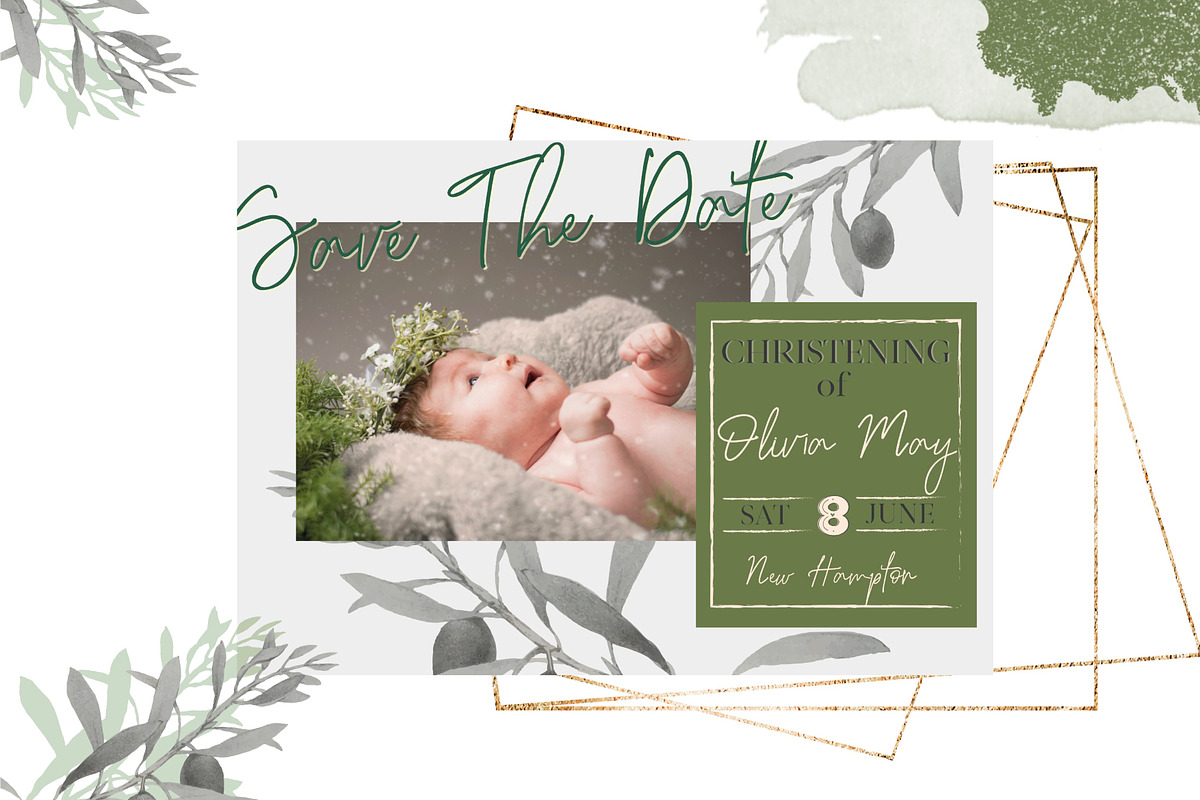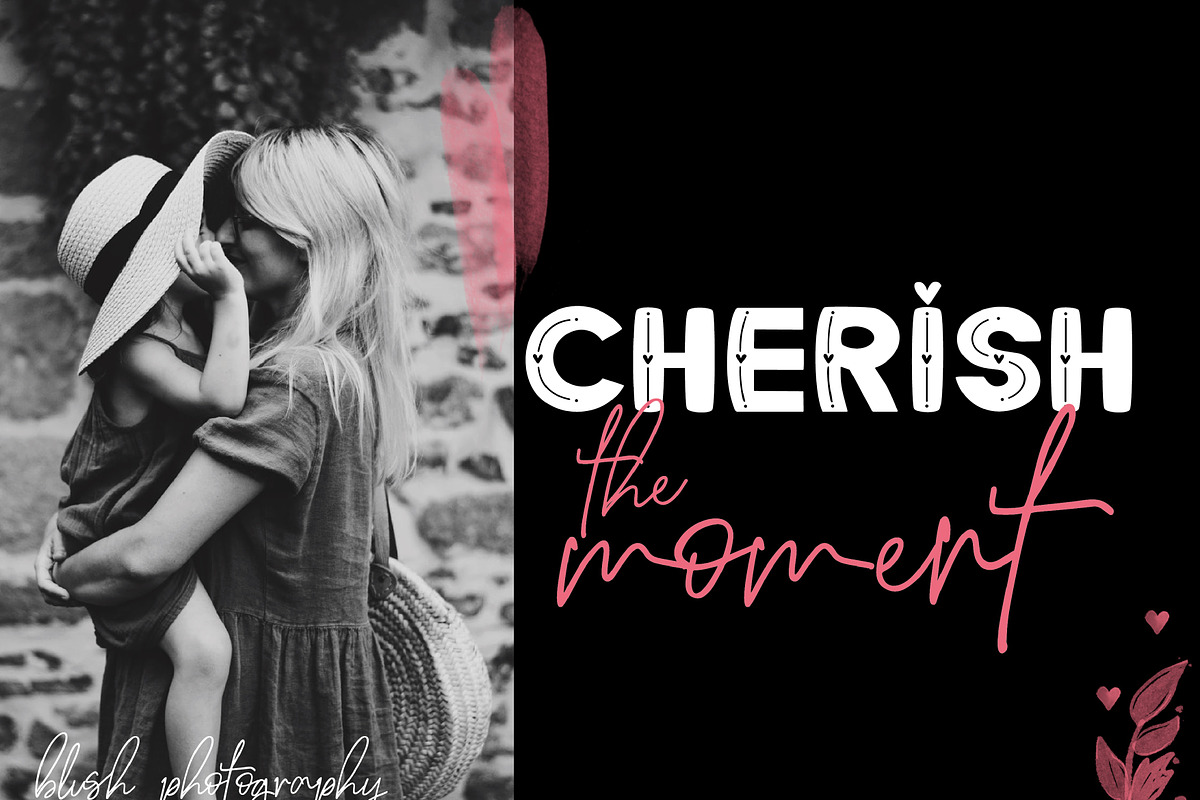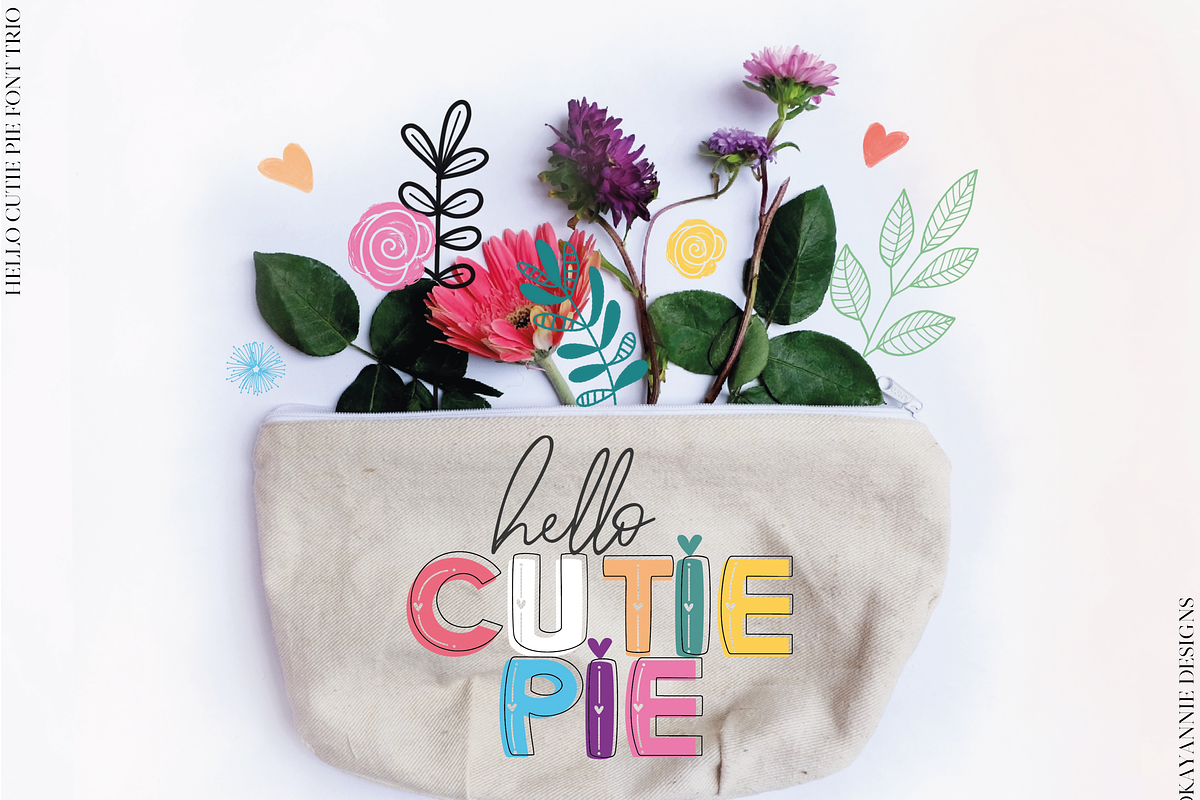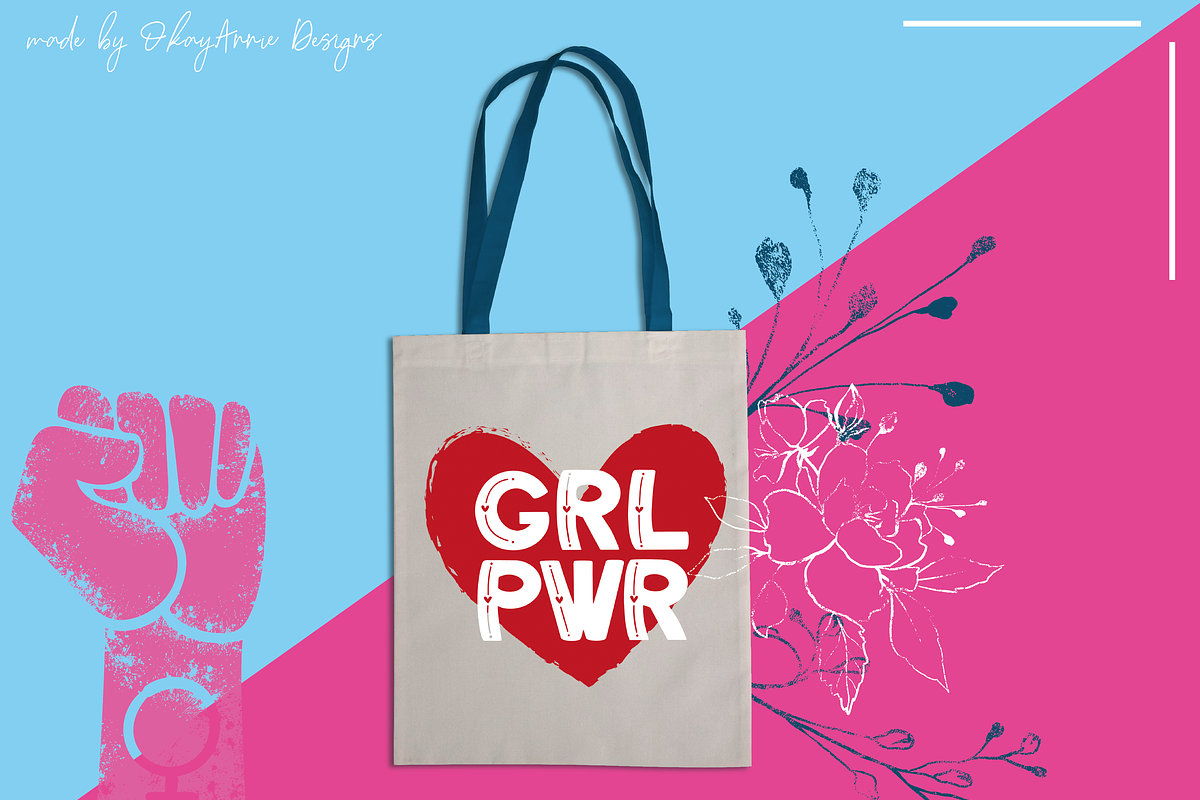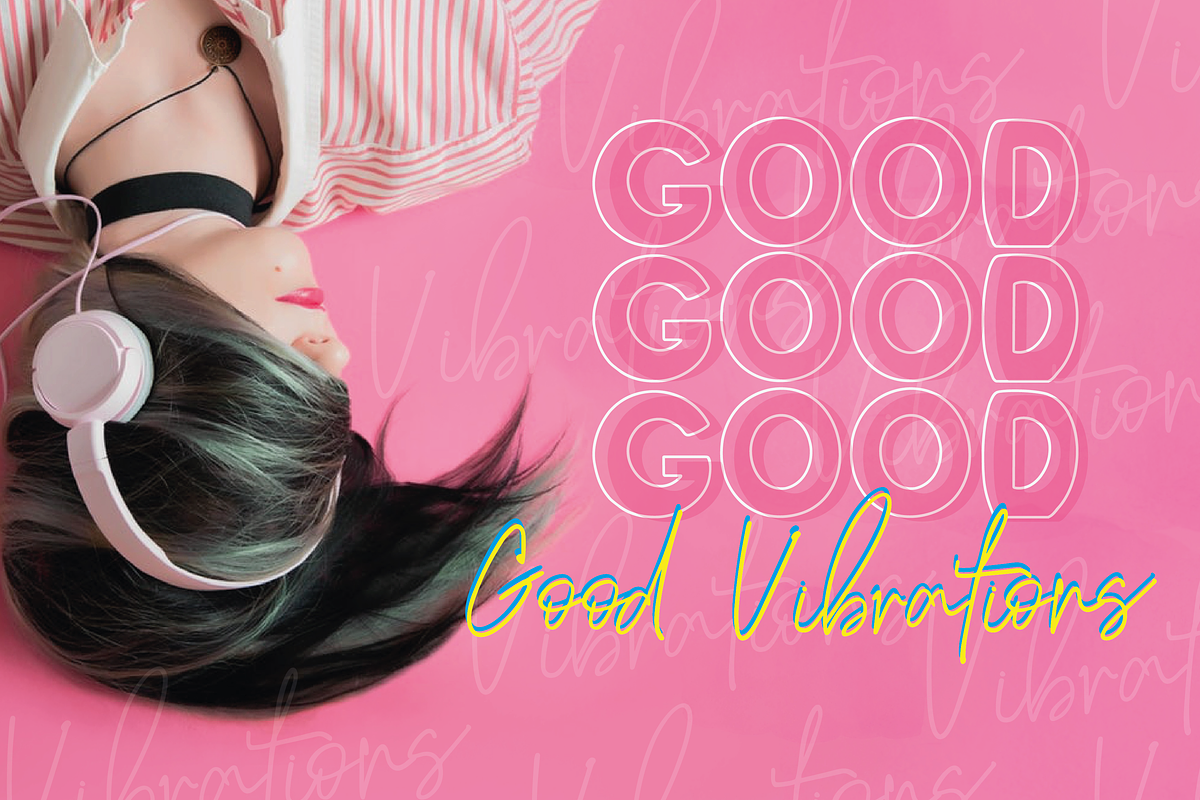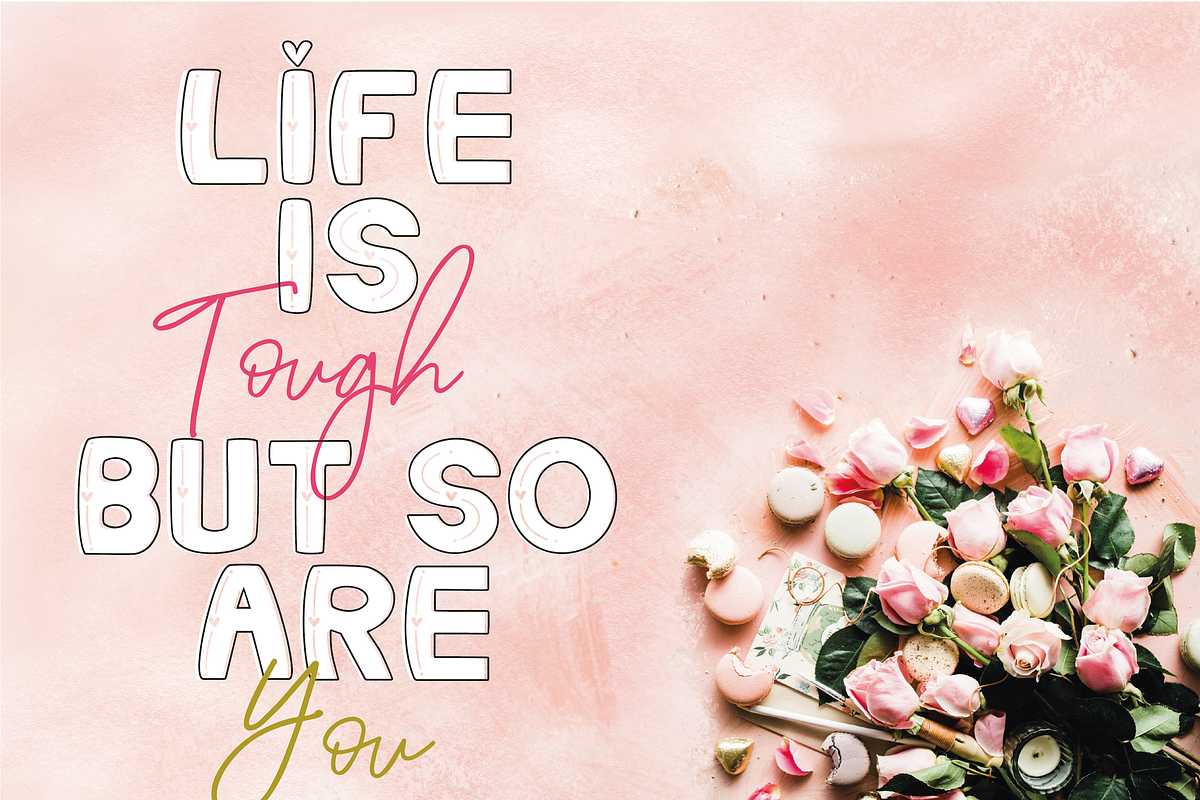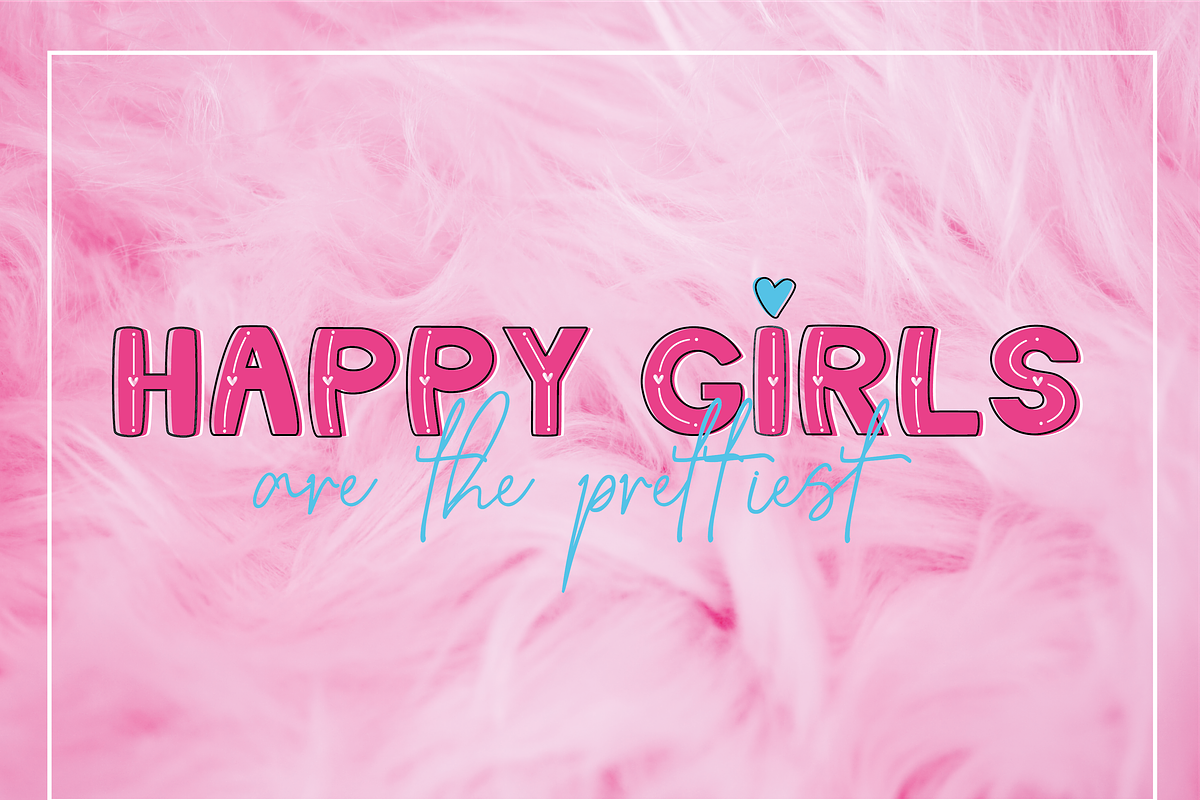
Hello Cutie Pie Font Collection
Introducing a super cute and sassy 'hello Cutie Pie" Font Collection that includes a cute serif font, a solid font, an outline font and a complimentary script font.
This font is perfect for moodboards, logos, social media, scrapbooking designs and stationery. It will look stunning on bags, t-shirts and other merchandise!
Hello Cutie Pie Font includes:
Cutie Pie Regular (with hearts) and Solid (without hearts) with uppercase and lowercase letters, numbers a few punctuation characters and international character support.
Cutie Pie Outline with uppercase and lowercase letters, numbers, punctuation and international support.
Hello Script with uppercase and lowercase letters, numbers a few punctuation characters and international character support.
Mix and Match the cutie pie font with the solid font and or the outline font in your design!